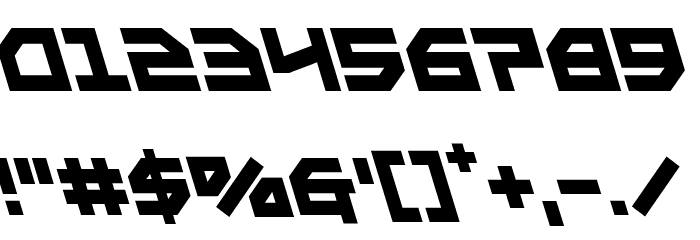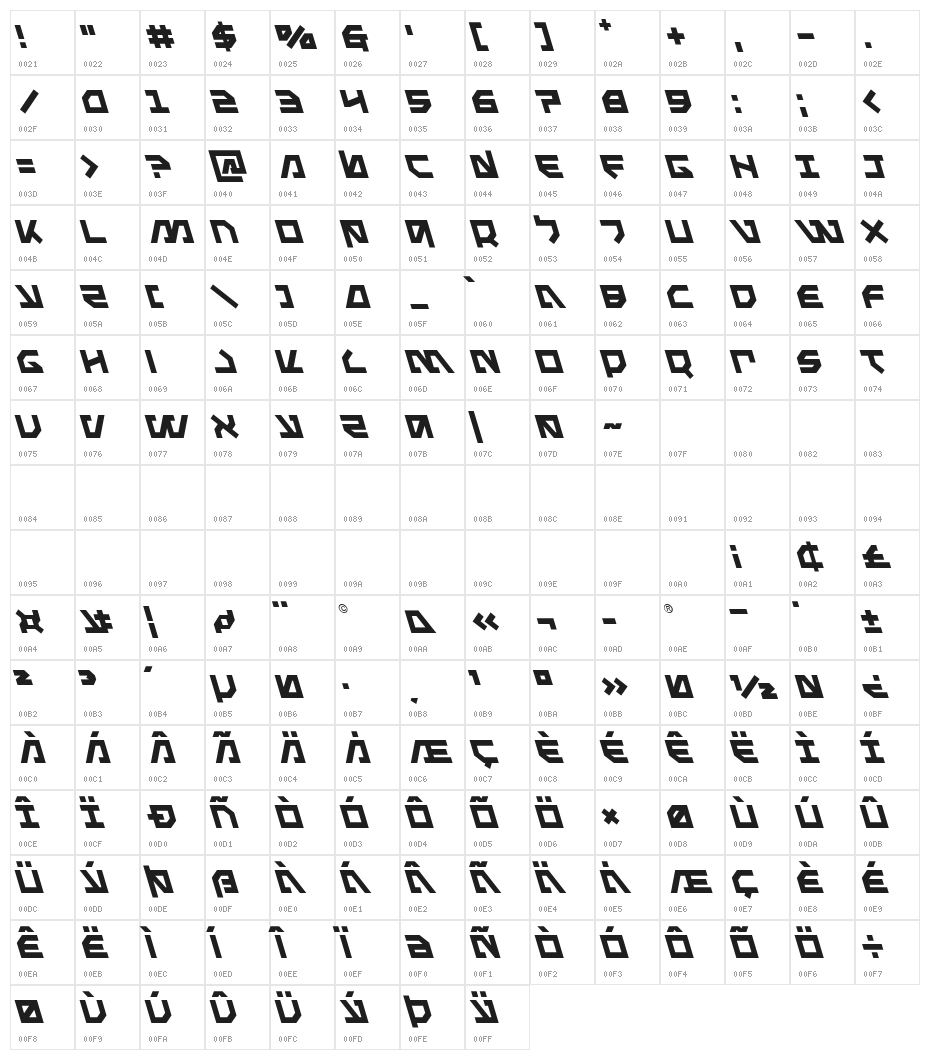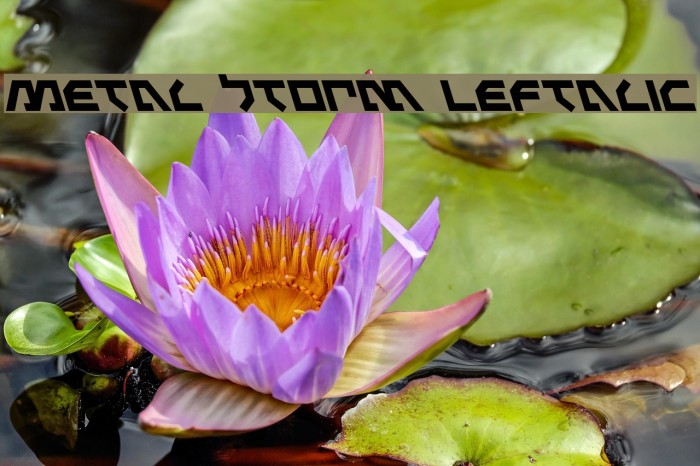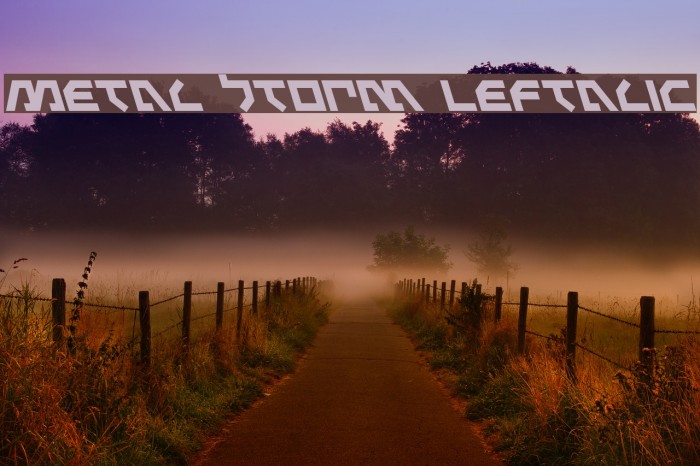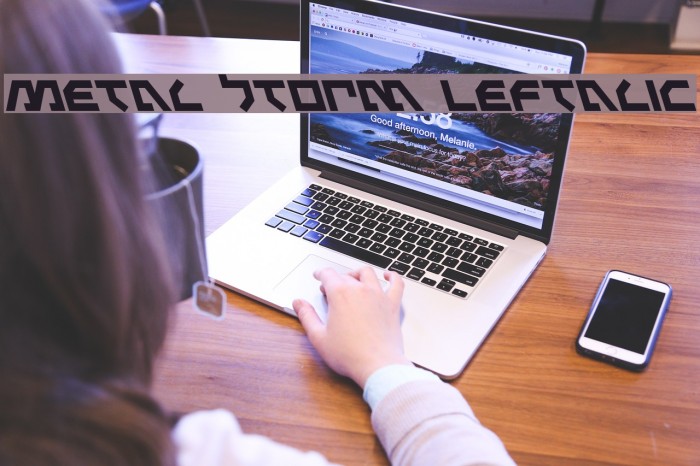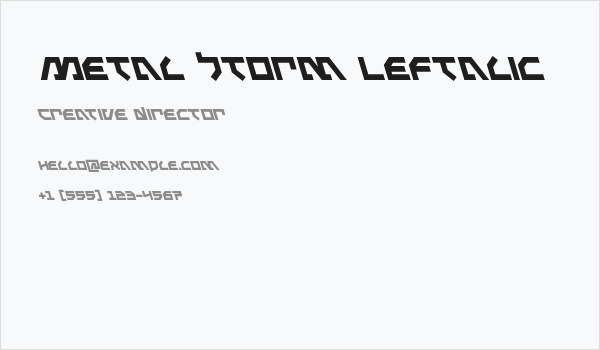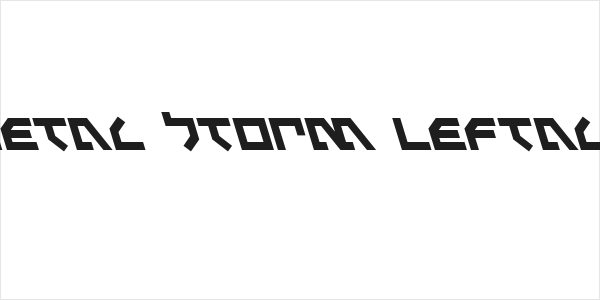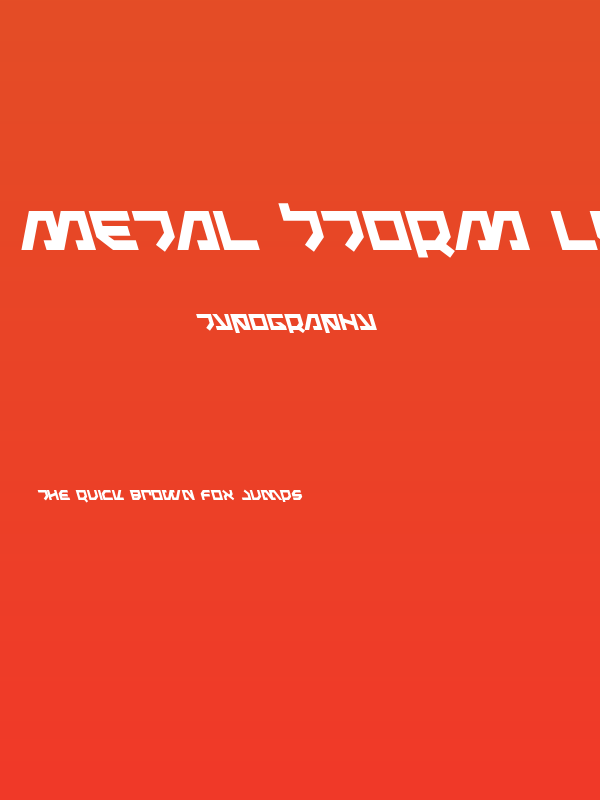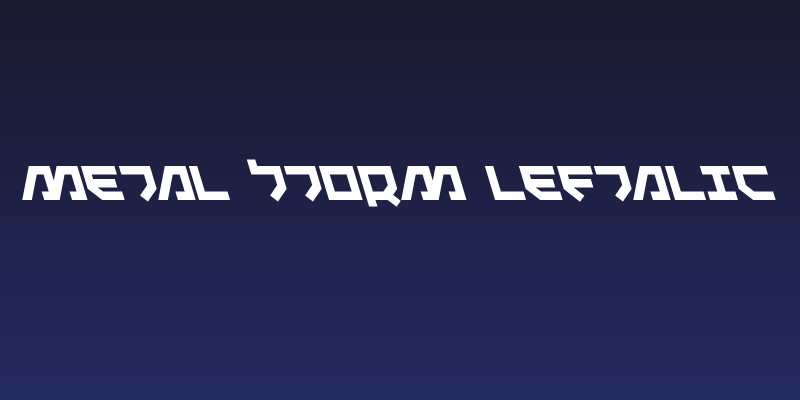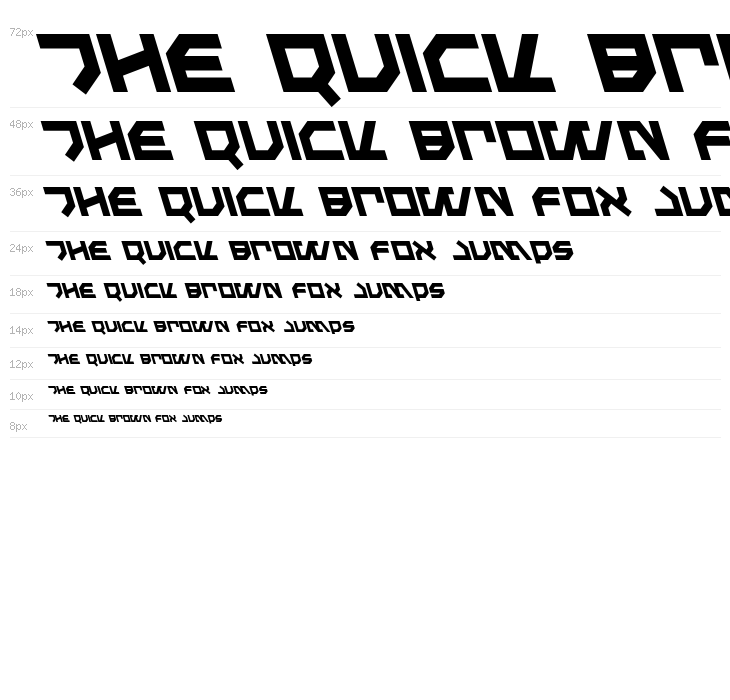
Metal Storm Leftalic Font
Metal Storm Leftalic Description
This font features a bold, angular design with a futuristic and industrial aesthetic. The characters are sharply cut with a distinct geometric style, giving them a dynamic and edgy appearance. The uppercase and lowercase letters maintain a consistent angularity, while the numbers and special characters follow the same design principles, ensuring uniformity across all glyphs. The font's unique style makes it stand out, with each character exhibiting a sense of motion and energy. The bold strokes and sharp angles suggest a modern, tech-inspired theme, suitable for projects that require a strong visual impact.
| Proposed Projects | Ideal for sci-fi themed projects, video game titles, tech branding, and futuristic posters. |